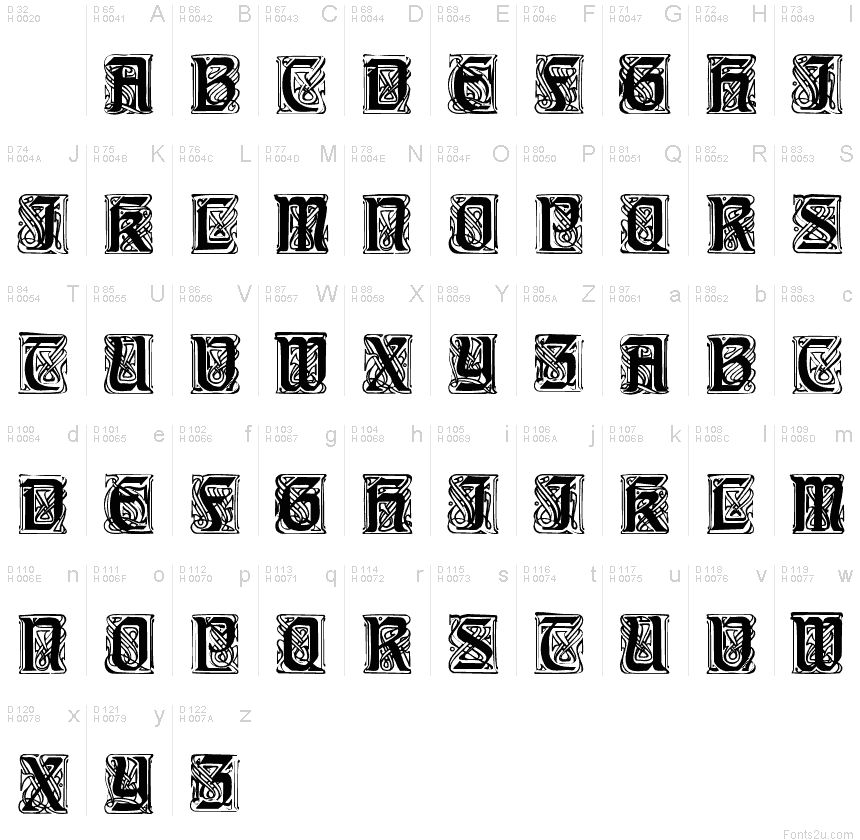
Carrick Caps by Typographer Mediengestaltung is a free Celtic initials font built from broad, formal capitals and closely packed interlaced ornament. Ribbonlike strands loop through the angular letters, with sharp notches and small circular details giving each form the look of carved manuscript decoration.
The knotwork directly echoes illustrated borders and heraldic emblems. That connection suits fantasy book covers, historical event posters, game graphics, and themed packaging, where the woven motif can continue through maps, crests, or rich decorative patterns.
Carrick Caps